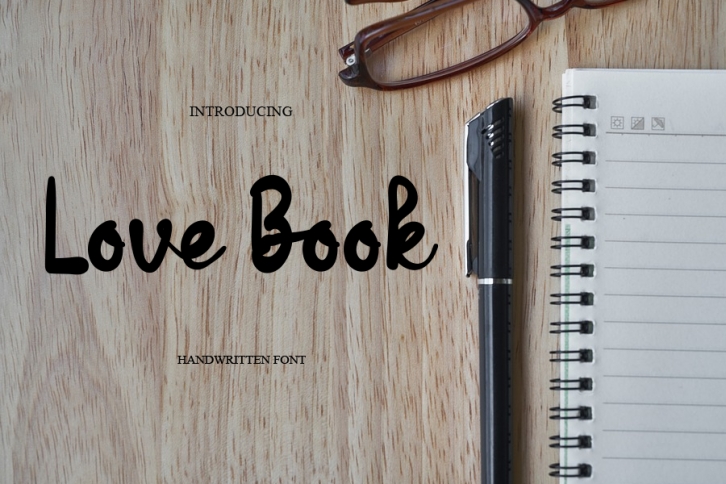
Love Book is a delicate and elegant handwritten font. Its distinct and round letters make this font a masterpiece. Fall in love with its incredibly versatile style and use it to create spectacular designs!